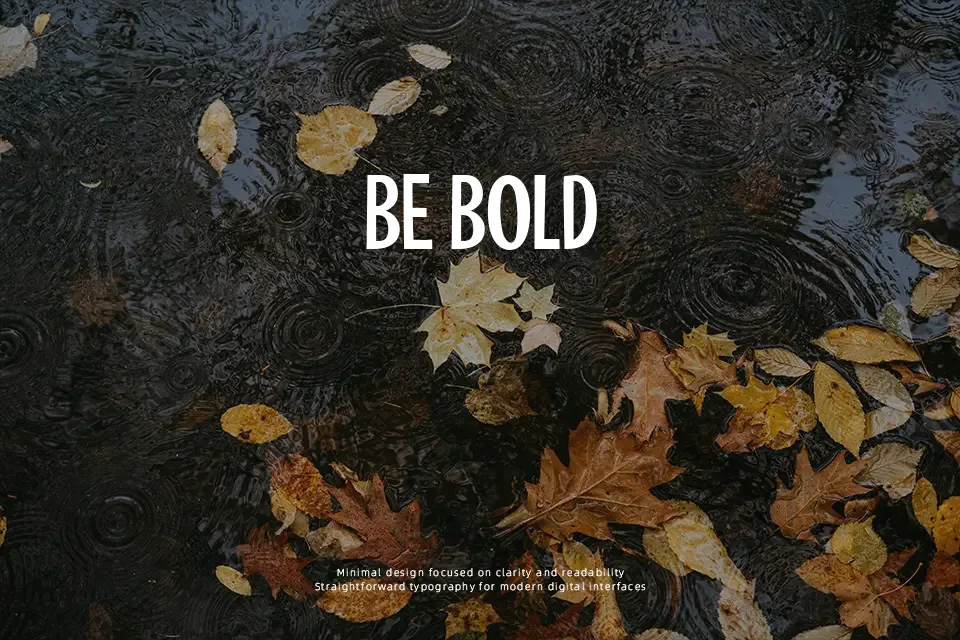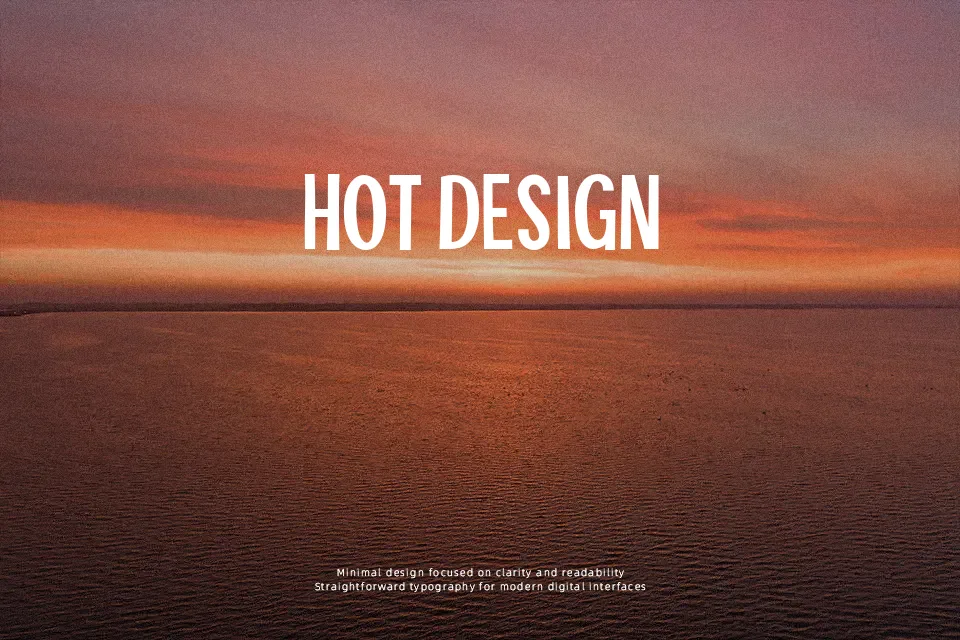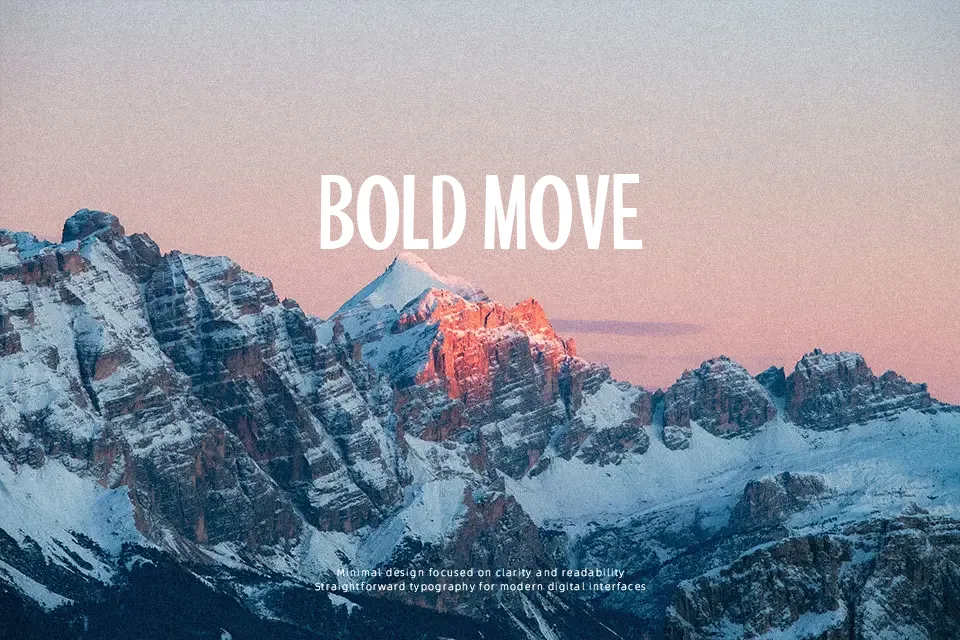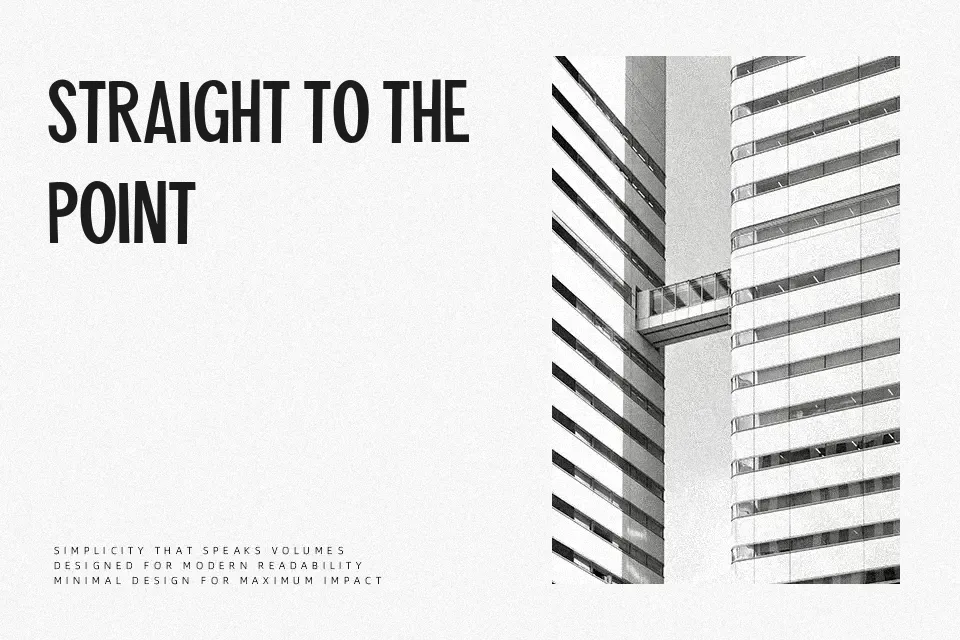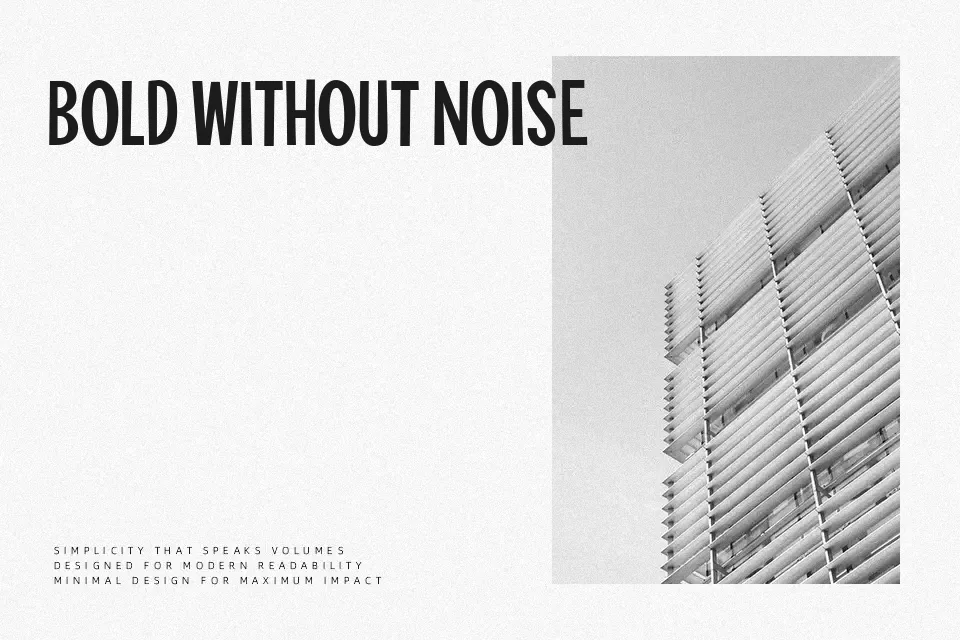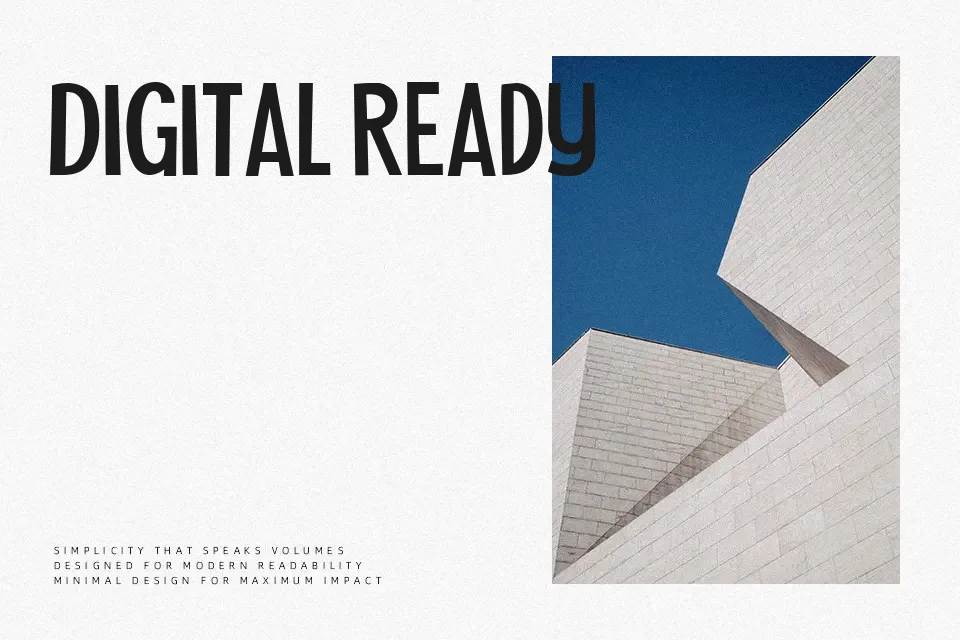
Tahiti Sans Font
Designed by Dennis Ludlow
Tahiti Sans Font works best in larger display settings, where its tall uppercase forms, even-weight strokes, and subtly uneven baseline placement remain clear. The letterforms combine mostly straightforward sans-serif construction with small shifts in angle and spacing, producing a loose, childlike rhythm without becoming difficult to recognize. Its narrow vertical proportions help short headlines fit into limited space, while the outline version can add contrast in simple graphic layouts. The typeface is a practical choice for short promotional text that needs a playful edge. Its irregular alignment is less comfortable for extended reading and can look unsettled in dense copy.
Best For: youth sports posters,social media graphics,children’s event signage,playful advertising headlines
Perfect for advertising, headline, and kids, with a creative and cartoon style.